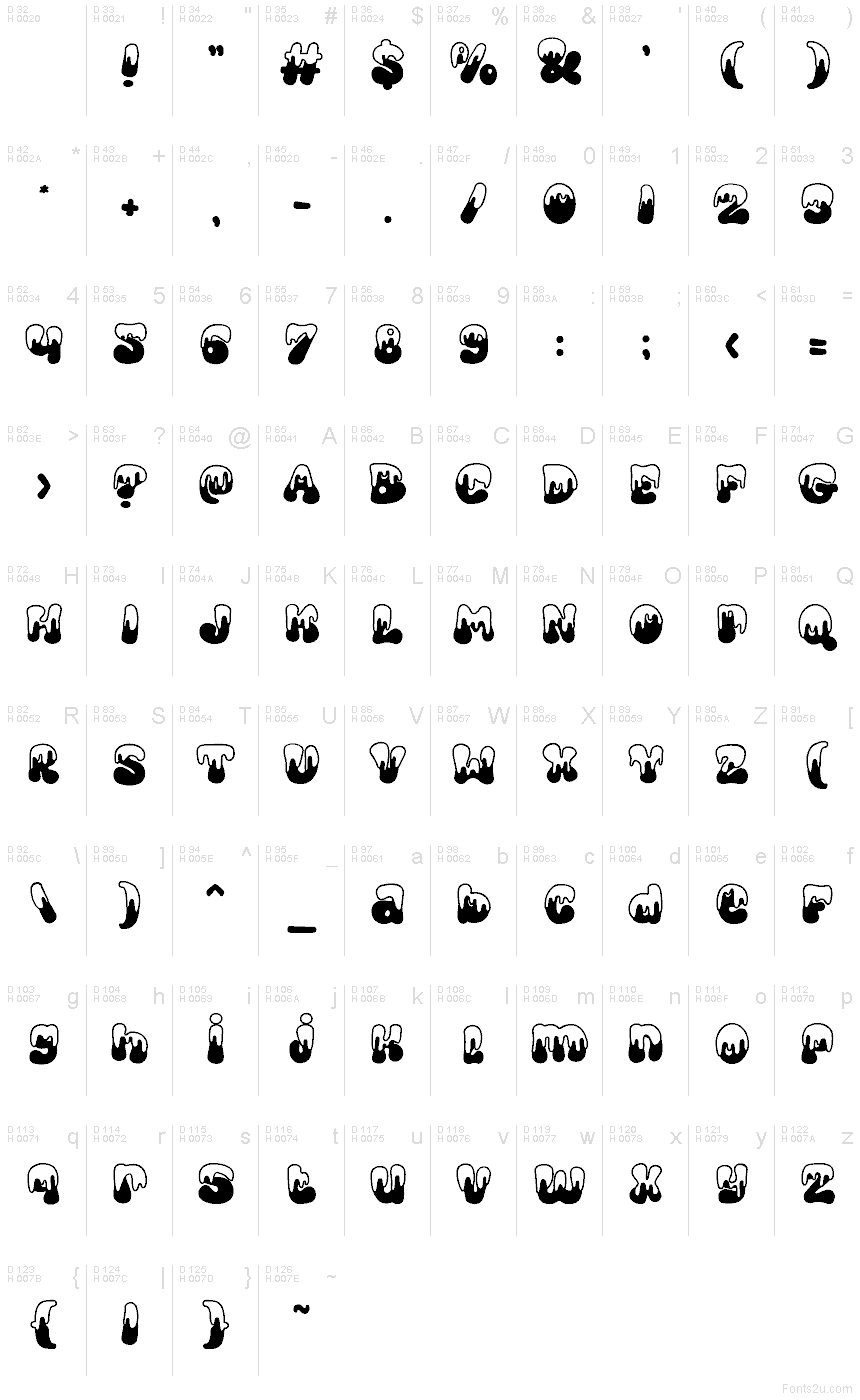
Cold Snowflake Five
Cold Snowflake Five font by PutraCetol Studio is a bold display typeface style from the Cold Snowflake family. The glyph features smooth contours with a dripping effect giving them a liquid-like appearance. This beautiful playful cartoon font provides both a modern and creative look which can be used in designs of various kinds to get spectacular final results.